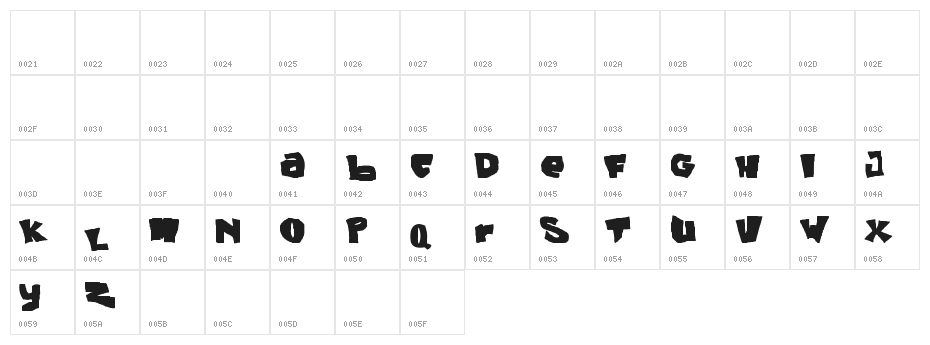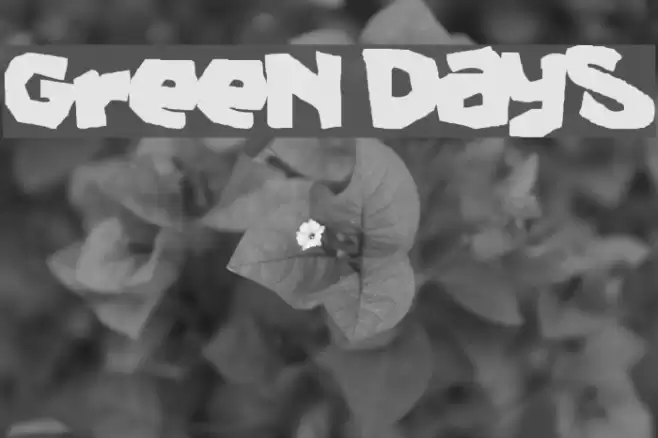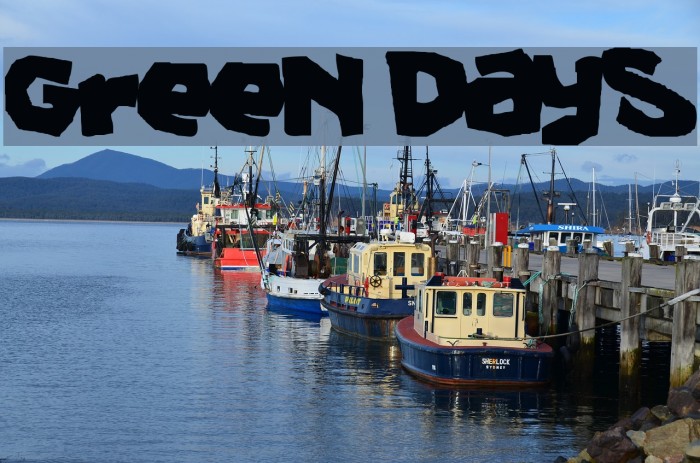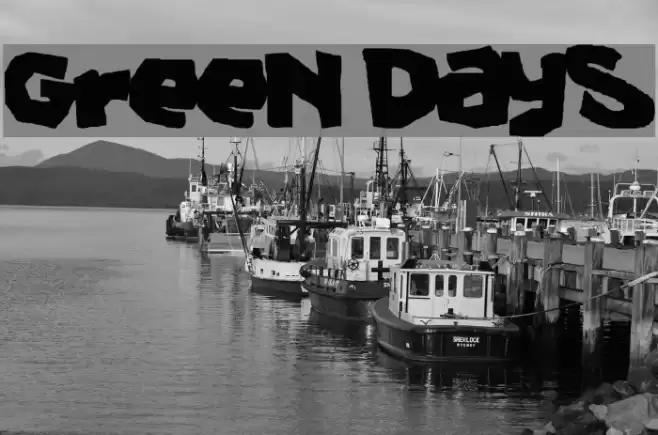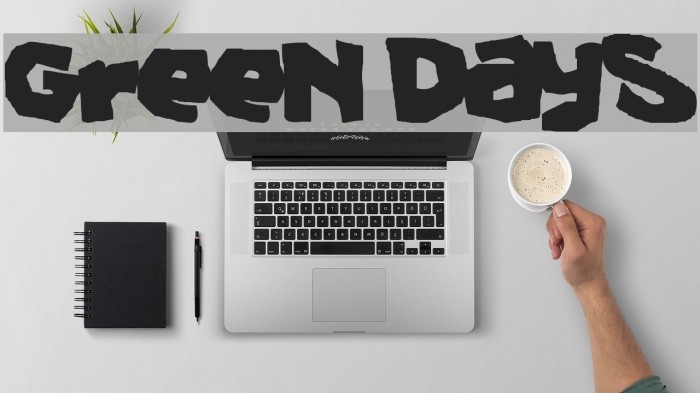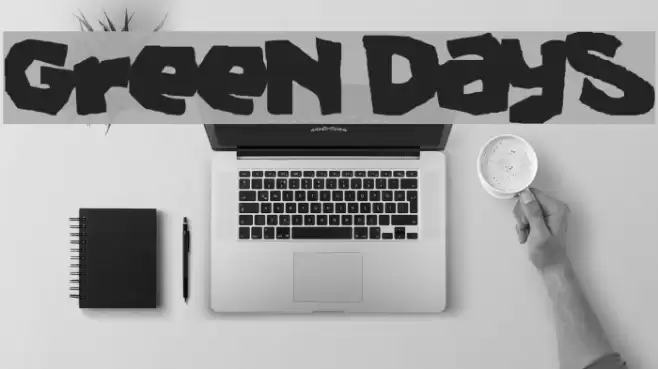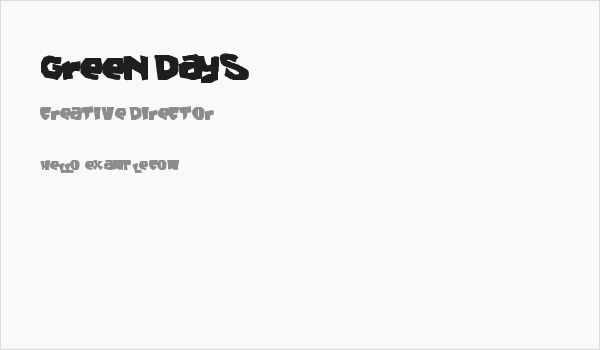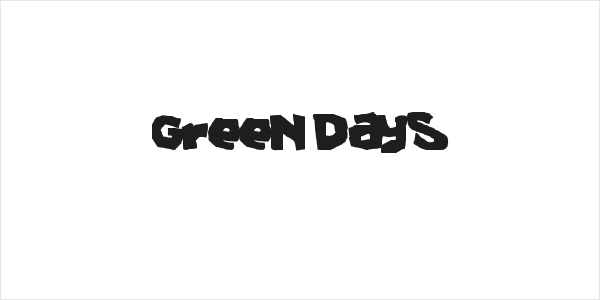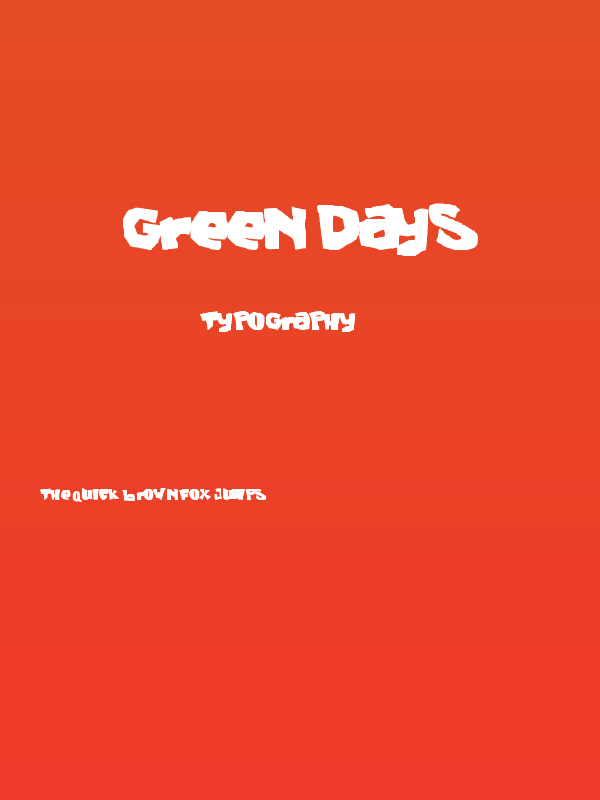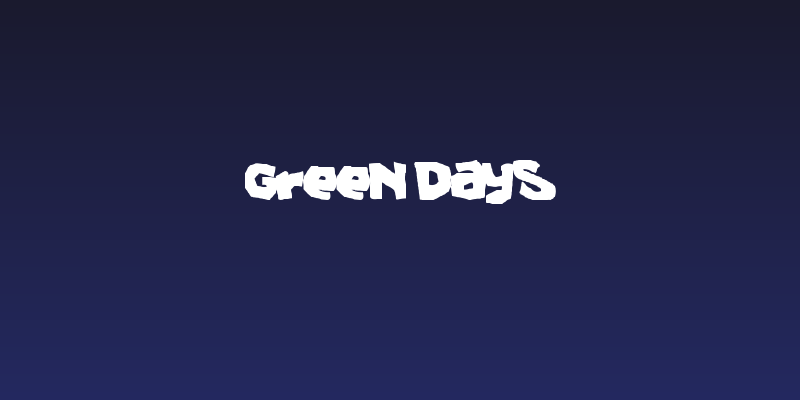
Green Days Font
Green Days Description
This font features a bold, graffiti-inspired style with a playful and rebellious edge. The characters are irregular and chunky, giving off a hand-drawn, urban vibe. Each letter has a unique shape, contributing to the font's dynamic and energetic appearance. The uppercase and lowercase letters maintain a consistent style, with exaggerated curves and angles that create a sense of movement. The font's boldness makes it highly visible and impactful, suitable for designs that require a strong visual presence.
| Overall Style | Urban, Playful, Rebellious |
| Proposed Projects | Ideal for street art designs, music album covers, posters, and urban-themed branding. |